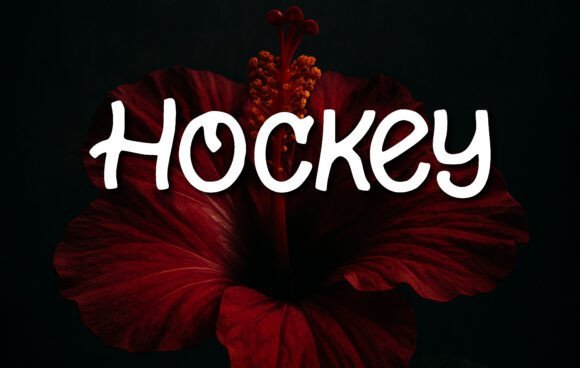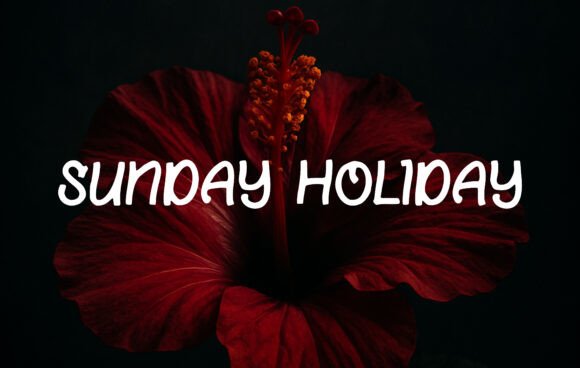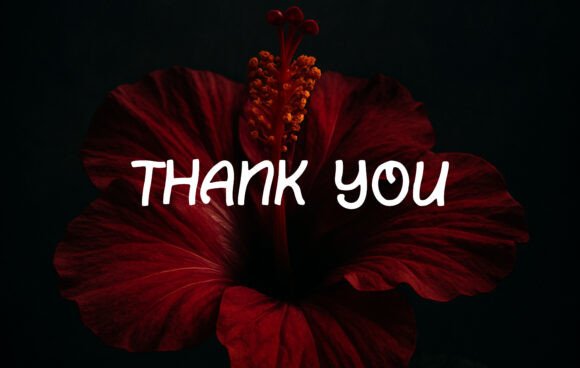
The Perfect Face-Off for Your Next Design Project
Have you ever been brainstorming a design concept and suddenly the perfect font pops into your head? For designers, those ‘aha’ moments are what make our job so exciting. And that’s exactly what happened when we discovered the Hockey Font – a lively, rounded display font that’s bursting with personality.
Whether you’re creating a sports-themed website, designing kids’ merchandise, or developing a brand identity for a hockey team, the Hockey Font is the perfect companion. With its quirky curves and fun vibe, it’s sure to deliver energy and readability in every design. And that’s exactly why it’s a valuable addition to any designer’s toolkit.
Hockey Font Key Features
- Font Style: Hockey Font is a unique, handwritten font designed to resemble hockey typography from the 1970s.
- Size and Resolution: Designed to be highly scalable, suitable for use in various sizes and resolutions, from small logos to large signage.
- Unique Characteristics: Features bold, expressive strokes and subtle imperfections to evoke a nostalgic, vintage feel.
- Font Weight: Available in regular and bold weights for flexibility in design applications.
Hockey Font Review
Hockey Font is a bold and eye-catching sans-serif font designed for sports teams and enthusiasts. What works well is its high-energy feel, perfect for branding and advertising related to hockey and other action-packed sports. ✨ The font’s thick lines and dynamic strokes give it a powerful presence that grabs attention. ✨ Additionally, Hockey Font includes a range of special characters and ligatures that can enhance text readability. ✨
While Hockey Font excels in its application to sports branding, it may not be the best choice for body text or formal documents. ⚠️ The font’s bold style can be overwhelming in large quantities, making it challenging to read. ⚠️ Furthermore, Hockey Font lacks the subtlety and sophistication often required for high-end designs. ⚠️
Hockey Font is a solid choice for sports-related projects that need a bold and attention-grabbing font. However, it may not be suitable for more refined or formal designs. If you’re looking for a font to create energetic and dynamic branding, Hockey Font is definitely worth considering.
- High-energy feel perfect for sports branding and advertising
- Thick lines and dynamic strokes give it a powerful presence
- Range of special characters and ligatures for enhanced readability
- May not be suitable for body text or formal documents
- Lacks subtlety and sophistication for high-end designs
Hockey Font Practical Application Guide
Tips: Use the Hockey Font for creating sports-themed graphics, such as hockey jerseys, team logos, or promotional materials.
Tips: Use the Hockey Font for creating custom hockey-themed graphics, such as posters, flyers, or social media graphics.
Tips: Use the Hockey Font for creating sports-themed presentations, reports, or documents.
The Hockey Font is ideal for creating sports-themed graphics, promotional materials, and documents related to hockey. It’s also great for creating custom logos, jerseys, or team branding.